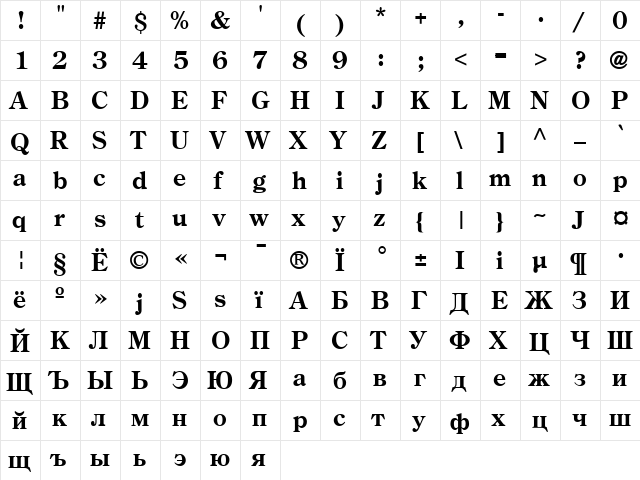
AGCenturyOldStyleCyr Bold
Design Context for AGCenturyOldStyleCyr Typeface
AGCenturyOldStyleCyr brings classic typographic sensibility to the table — its serifs and measured letterforms reflect centuries of print heritage. Its bold stroke weight gives it real presence on the page.
Pro Tip: Set AGCenturyOldStyleCyr with slightly loose tracking in headlines to let each letterform's detail read clearly at display sizes.